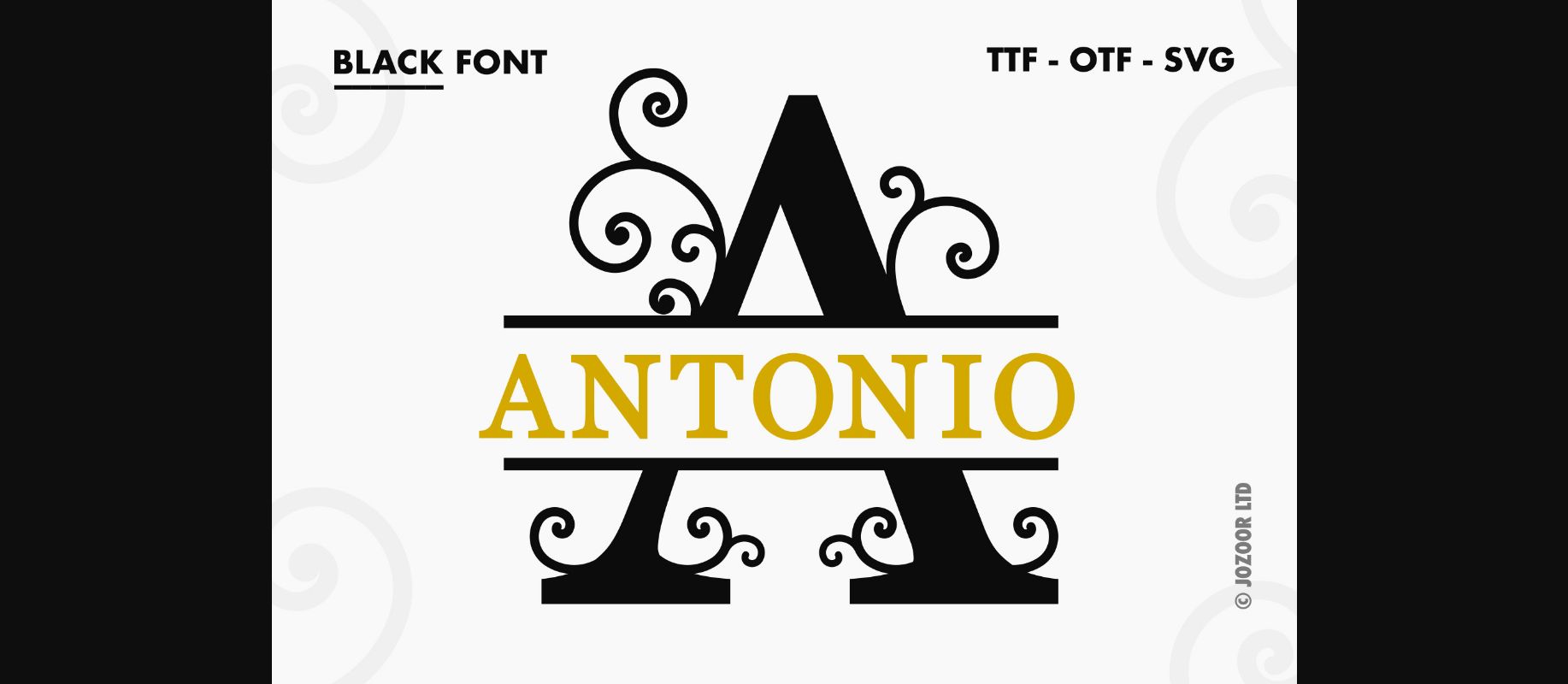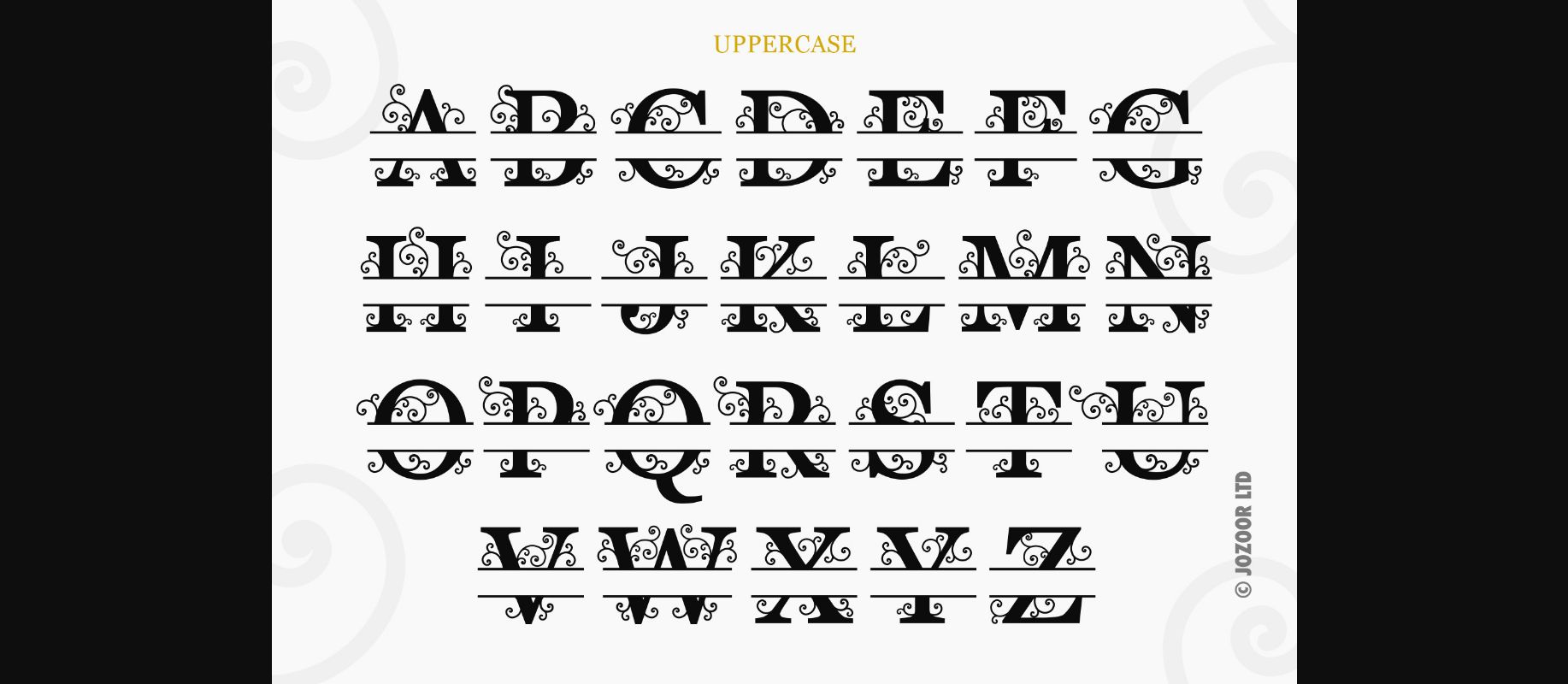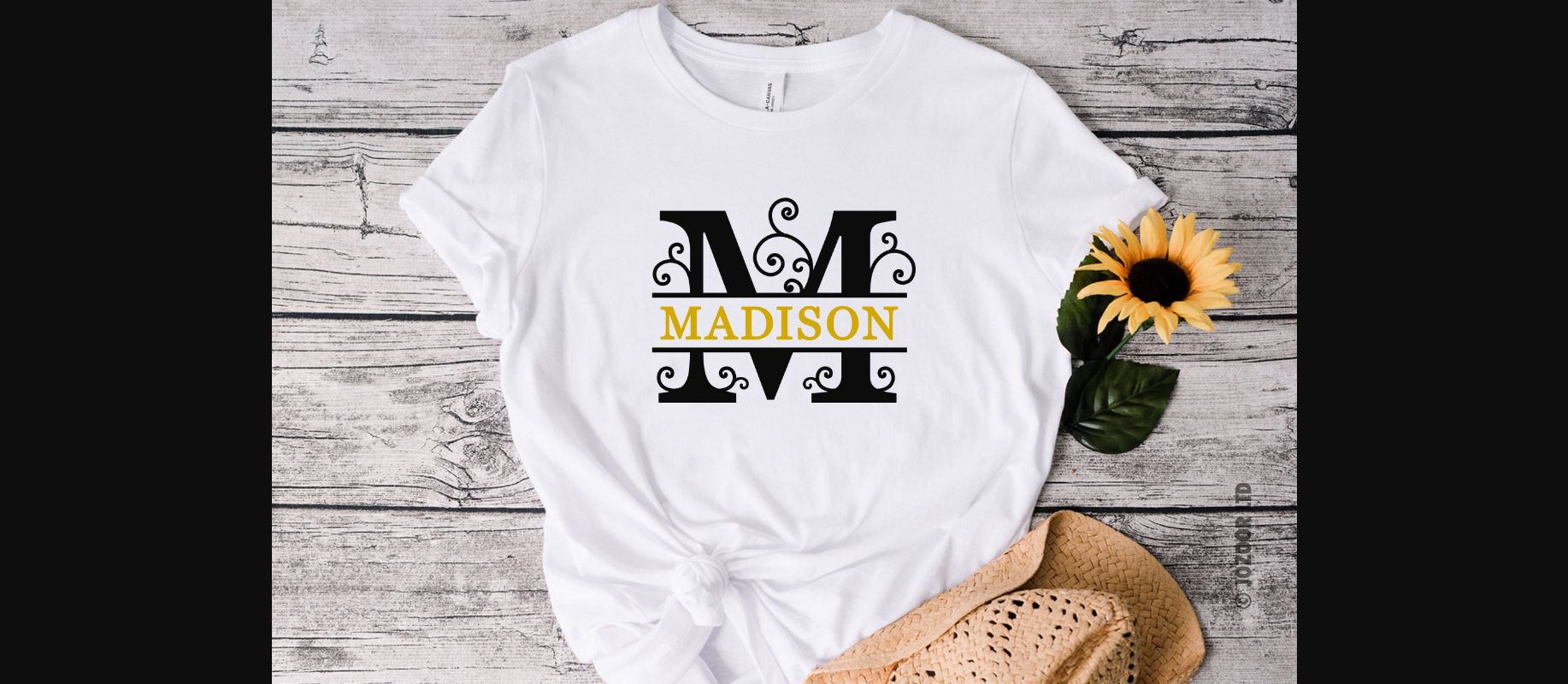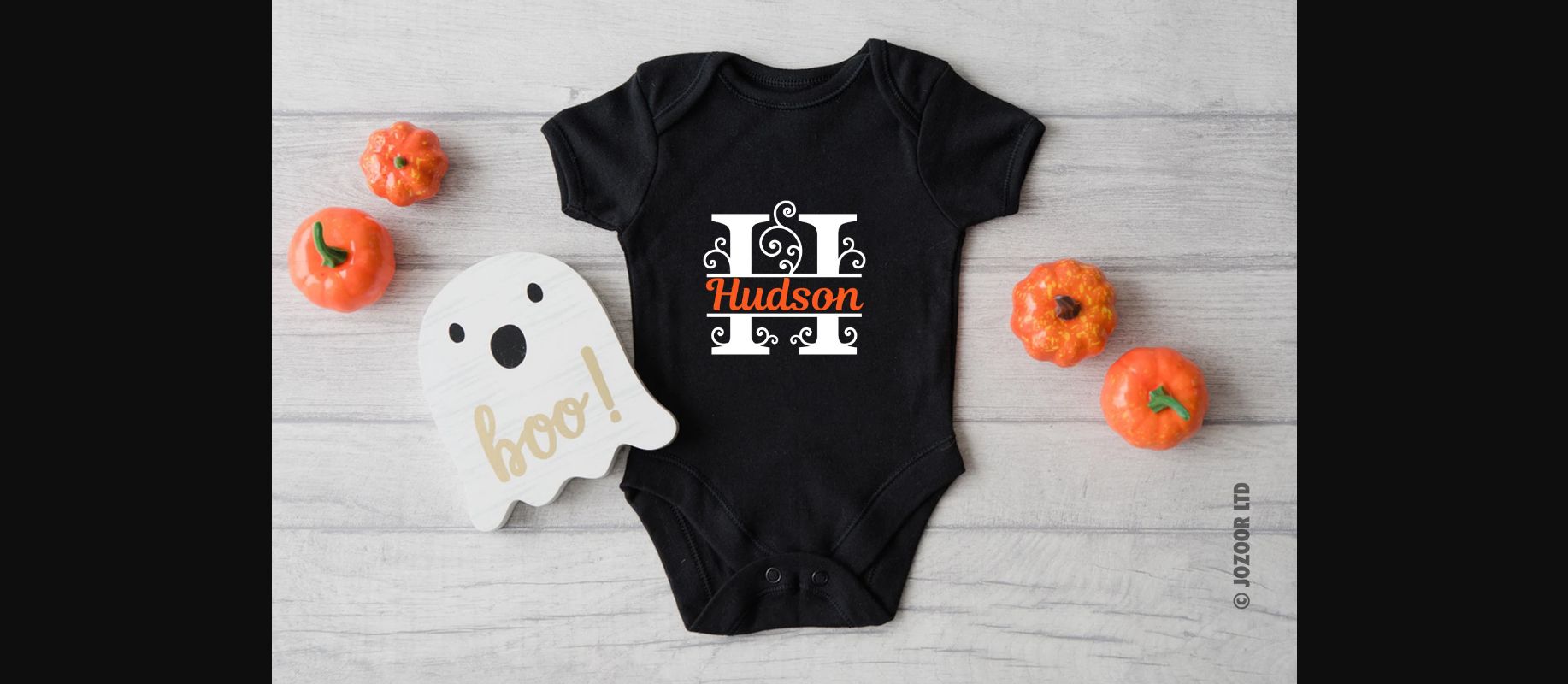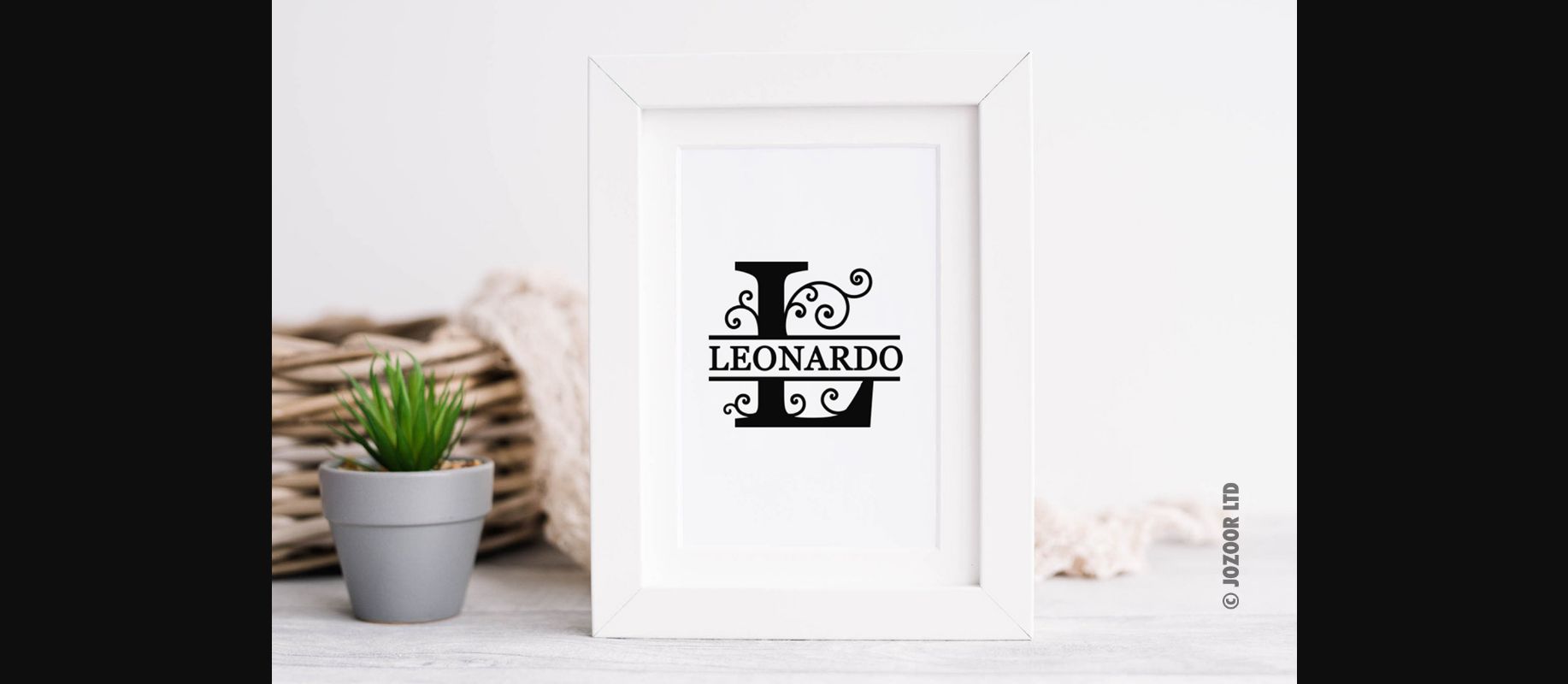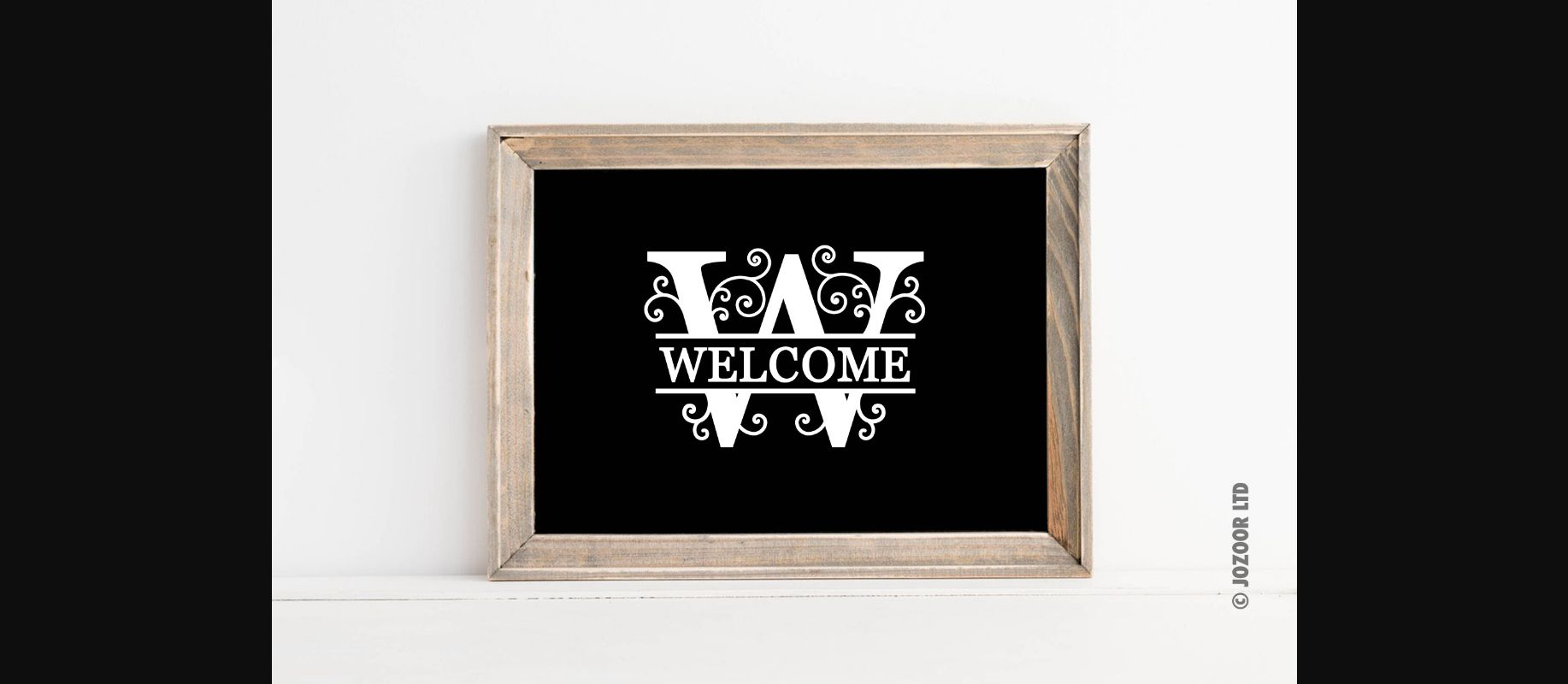
Antonio Split Monogram Font
About Antonio Split Monogram Font
Antonio Split Monogram is a cute decorative font with an amazing look. Get inspired by its authentic feel and use it to create gorgeous wedding invitations, beautiful stationary art, eye-catching social media posts, and cute greeting cards.